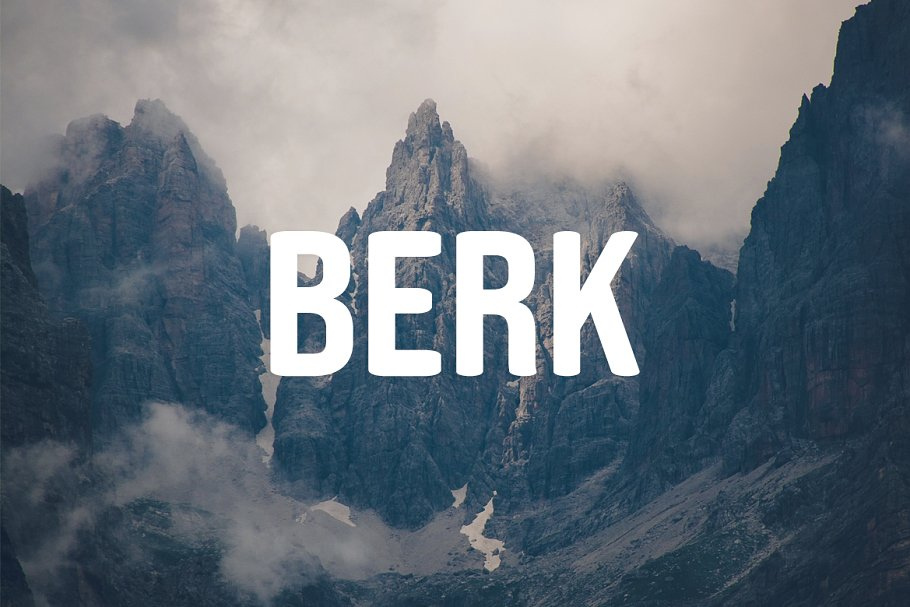
Berk Font
Berk Font is perfect for contemporary corporate branding, modern professional services, sleek technology companies, progressive business communications, innovative consulting firms, and sophisticated digital platforms. Its clean character makes it ideal for financial institutions, management consultancies, software development agencies, modern law firms, corporate training providers, and any project requiring professional reliability with contemporary business aesthetics and trustworthy communication standards.
This font is exciting because it delivers exceptional clarity and professional credibility while maintaining approachable warmth that builds trust in business relationships. The carefully balanced letterforms demonstrate attention to detail and commitment to excellence, creating typography that feels both authoritative and accessible, making it perfect for companies seeking to communicate competence while maintaining human connection and approachable professionalism.
The Berk Font family typically includes Light, Regular, Medium, and Bold weights with professional alternates, business-focused ligatures, and corporate elements that enhance its reliable personality. This comprehensive collection provides business professionals with versatile tools for creating trustworthy brand systems that maintain consistent professionalism while offering flexibility for various corporate applications requiring credibility and modern appeal.